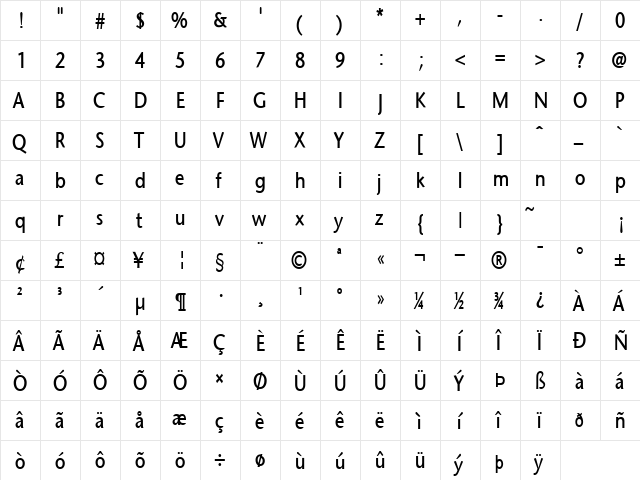
Optimist-Condensed Bold
Design Context for Optimist-Condensed Typeface
Optimist-Condensed is a composed and adaptable typeface that performs quietly and consistently across a wide range of design contexts. Its bold stroke weight gives it real presence on the page. The condensed width makes it efficient for tight spaces without sacrificing legibility.